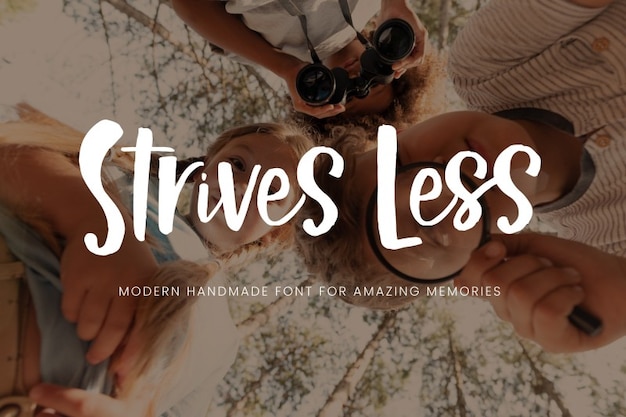
Strives Less is a modern handmade font created to make your projects unforgettable. This typeface is perfect for backgrounds, cards, flyers and posters. Download it now and start creating!
Strives Less (400)